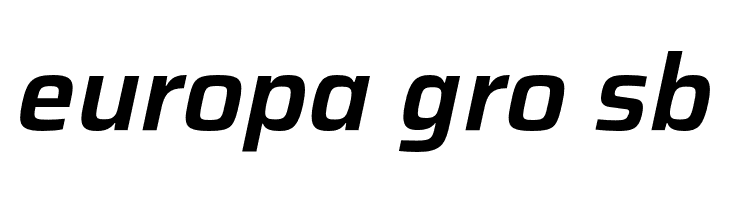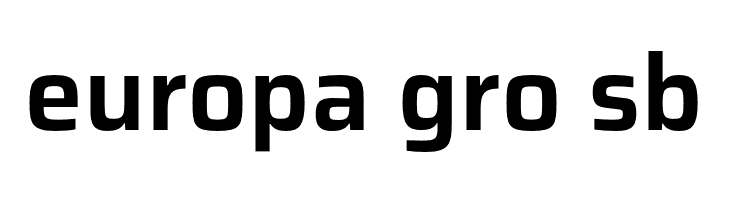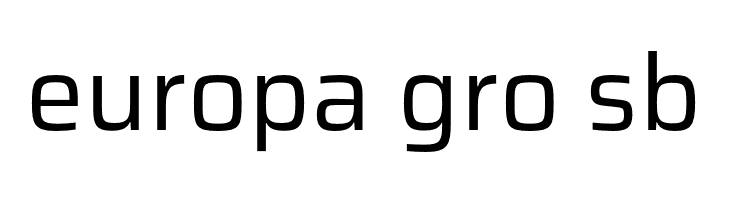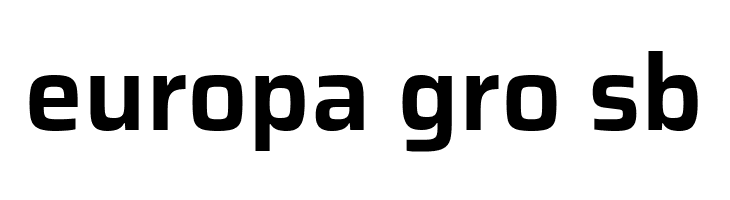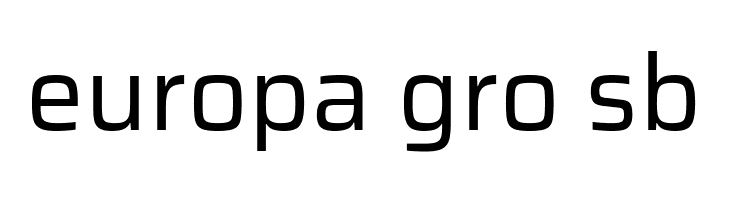
A modern sans-serif font with semi-bold weight and medium contrast.
A modern, semi-bold sans-serif font with a clean and geometric design.
A sleek, semi-bold italic font with a modern and dynamic style.
Bold, semi-condensed font ideal for impactful headlines.
A bold, semi-condensed sans-serif font with a modern and impactful style.
A bold, semi-condensed italic font with high contrast and modern appeal.
A bold, semi-condensed font with a modern and robust style.
A bold, semi-condensed typeface with a modern and clean design.